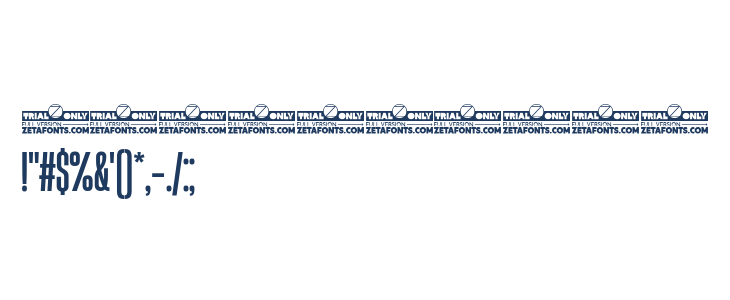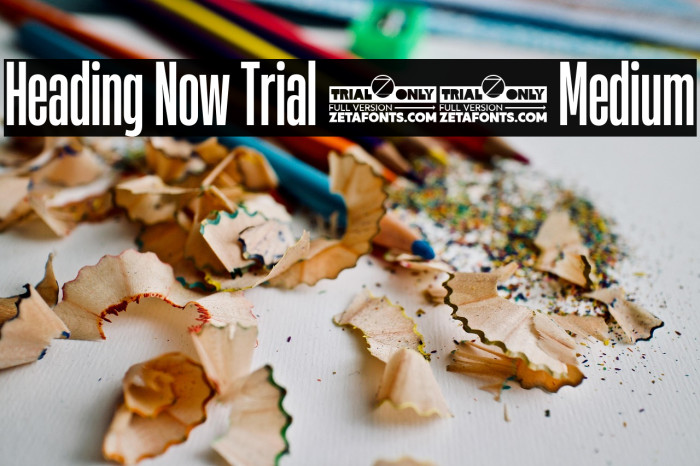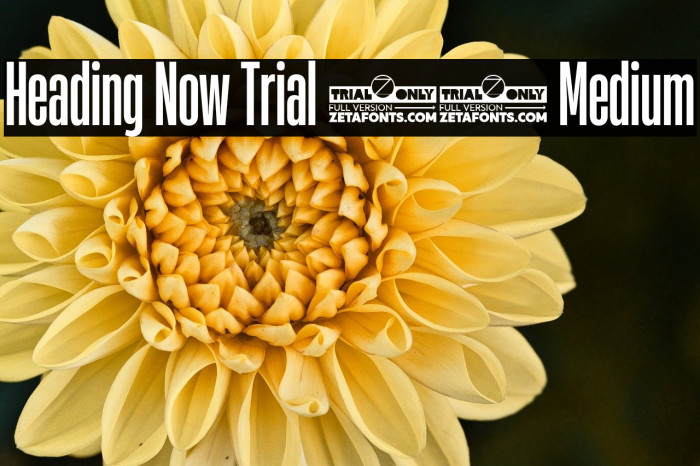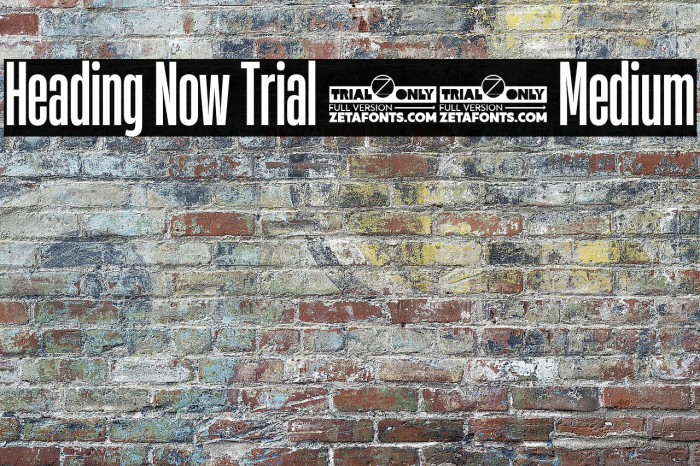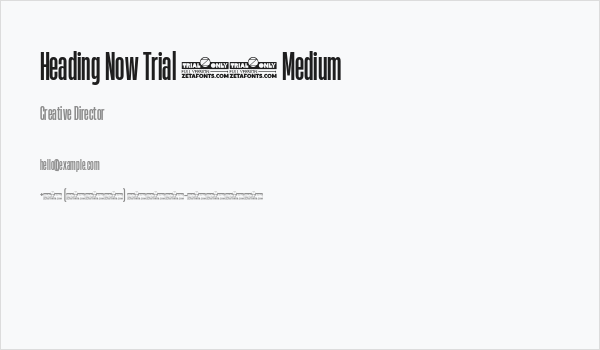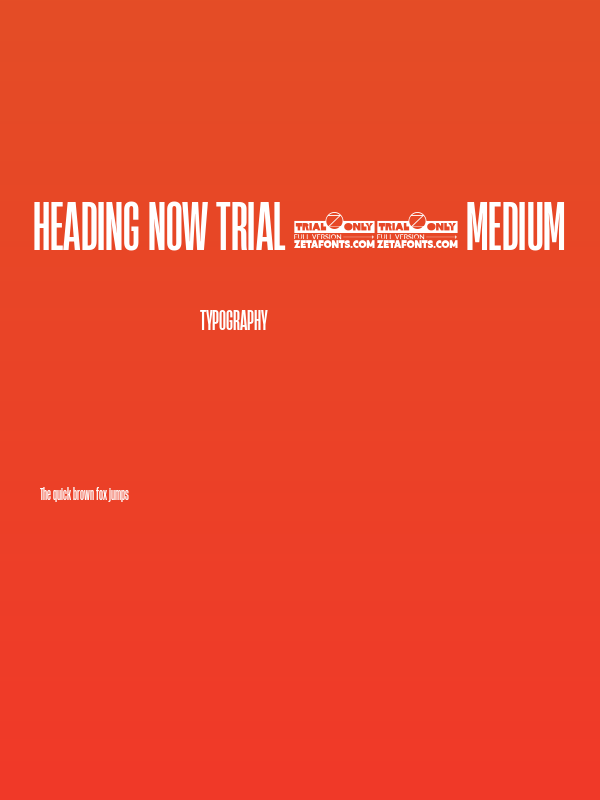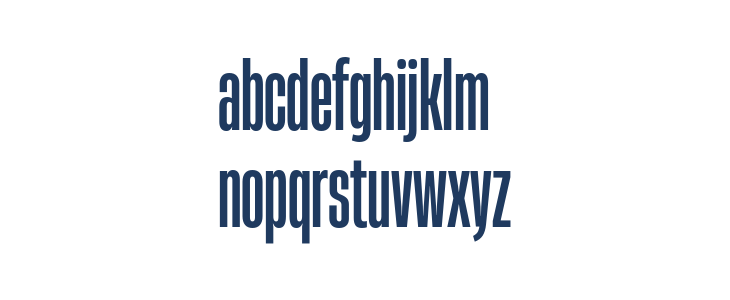
Heading Now Trial 25 Medium Font
Heading Now Trial 25 Medium Description
This font features a bold and modern design with a strong presence. The characters are tall and narrow, giving it a condensed appearance. The uppercase and lowercase letters maintain a consistent style, with clean lines and minimal embellishments. The numbers and special characters follow the same design principles, ensuring uniformity across all glyphs. The overall look is sleek and professional, making it suitable for impactful headlines and branding materials.
| Proposed Projects | Ideal for use in headlines, posters, advertising, and branding projects where a strong, modern impression is desired. |